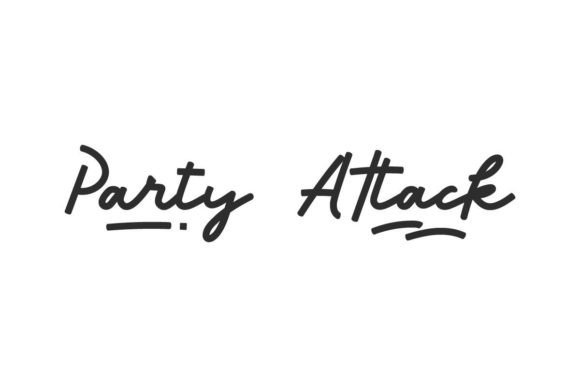
Party Attack Font - Your Ticket to Design Brilliance
In a world saturated with uniformity, Party Attack Font stands as a beacon of individuality, a testament to the power of the handwritten word. Its casual, simple, and cheerful demeanor captivates the imagination, evoking a sense of nostalgia and playfulness that resonates with audiences of all ages.
With Party Attack Font as your creative companion, endless possibilities await. Its incredibly distinct and timeless style breathes life into your designs, adding a touch of whimsy and charm that captivates and enchants. From eye-catching school signs that radiate warmth and welcome to playful invitations that spark joy and anticipation, Party Attack Font transforms the ordinary into the extraordinary.
Experience the transformative power of Party Attack Font and watch as your designs take on a new level of sophistication and allure. Its timeless elegance transcends trends, ensuring that your creations remain relevant and captivating for years to come. Embrace the magic of Party Attack Font and embark on a journey of creativity that knows no bounds.